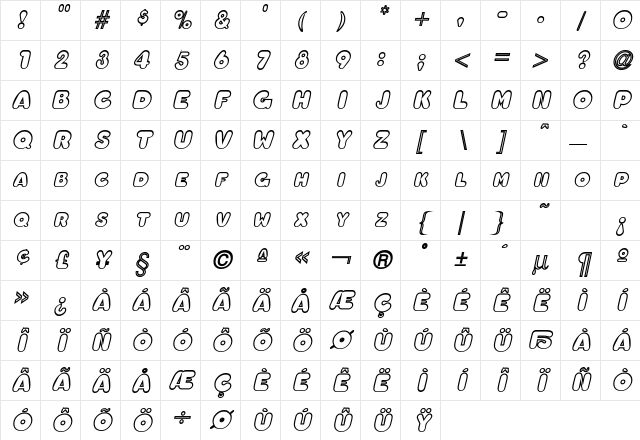
Design Context for OleadaOutlineSCapsSSK
OleadaOutlineSCapsSSK is built around its visual character rather than neutral utility - its distinctive forms are designed to make an impression at display sizes. The slanted form adds forward momentum and visual energy. Its bold stroke weight gives it real presence on the page.
Font Pairing: Pair with a clean neutral sans-serif for body copy to let OleadaOutlineSCapsSSK's character lead without overwhelming the composition.
Pro Tip: Use OleadaOutlineSCapsSSK exclusively at display sizes - it was designed to be seen, not read at length. Let a neutral companion handle body copy.